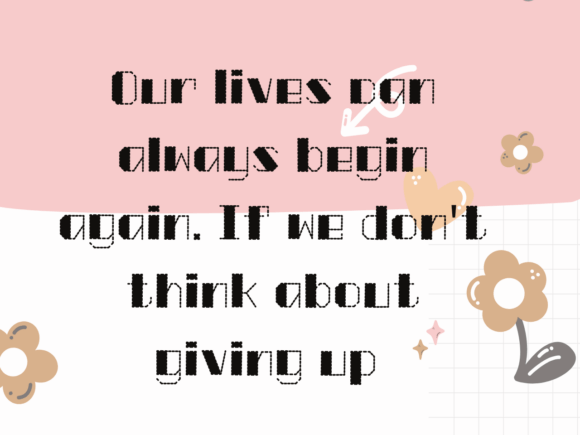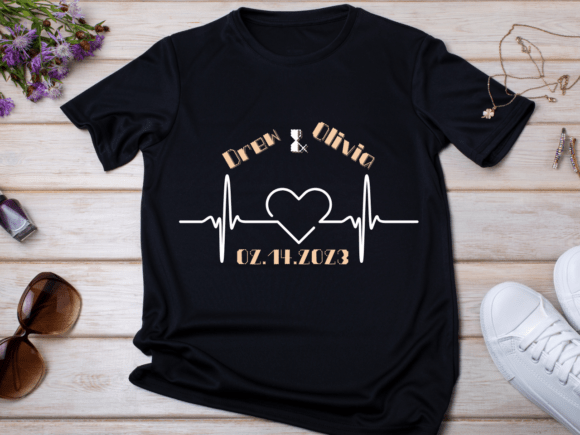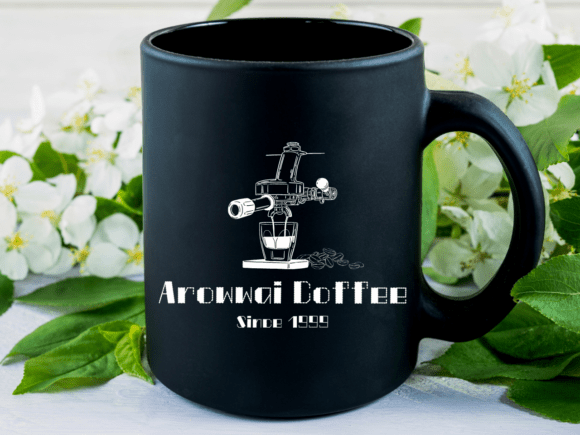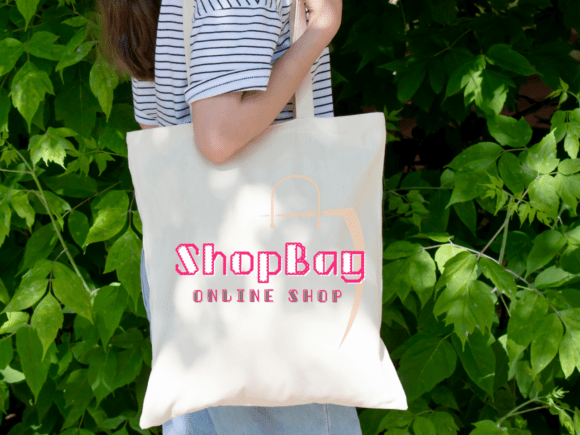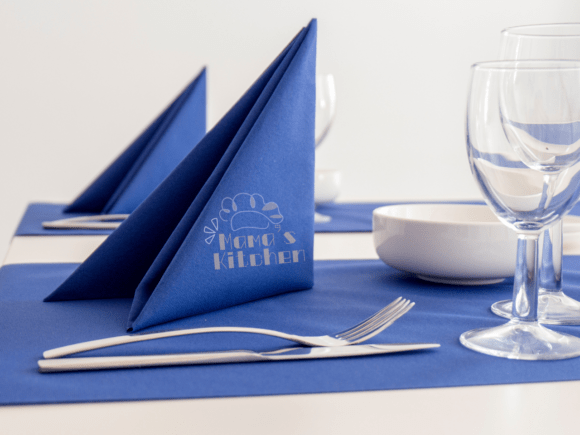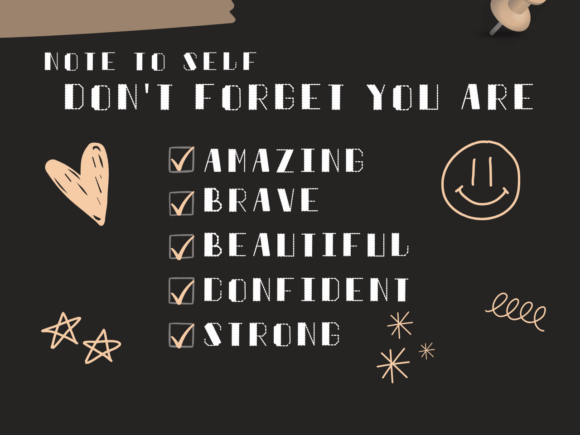
Introduction to Nevilny Font
Do you remember that moment when you stumbled upon the perfect design resource to elevate your creative project? For many designers, it’s like finding a treasure that sparks joy and creativity. Today, we’re excited to introduce you to a high-quality decorative font that’s sure to become your new favorite design companion – the Nevilny Font.
With its unique stitched-edge detailing and bold letterforms, this charming font perfectly balances cuteness with a touch of handcrafted elegance. Whether you’re working on a fun quote, colorful merchandise, or a craft design, Nevilny Font’s whimsical outlines give every word a soft, tactile feel – as if lovingly sewn by hand. And the best part? You can easily download Nevilny Font with a transparent background, making it a versatile design element for both digital and print creations.
- High-quality design resource suitable for creative projects, offering a unique and stylish aesthetic.
- Transparent background, allowing for seamless integration with various design elements and backgrounds.
- Includes a range of weights and styles, providing flexibility for designers to experiment with different typography options.
- Perfect for use in graphic design, digital art, and other creative projects where a distinctive and elegant font is required.
Honest Review: Nevilny Font
- ✨ Unique and modern design that stands out from the crowd
- ✨ High quality and crisp typography, perfect for logos, branding, and more
- ✨ Transparent background makes it easy to use with any color scheme
However, there are a few limitations to keep in mind. The font is not as versatile as some other options on the market, and it may not be suitable for complex or detailed designs.
- ⚠️ Limited font styles and weights
- ⚠️ May not be suitable for complex or detailed designs
Overall, I’m impressed with the Nevilny Font. It’s a great choice for designers looking for a unique and high-quality font for their creative projects. While it has some limitations, it’s a great addition to any design resource library.
Tips for Getting the Most Out of Nevilny Font
Nevilny Font is ideal for creating eye-catching social media graphics, logos, and branding materials. Its high-quality design makes it a great resource for any creative project that requires a unique and professional look.